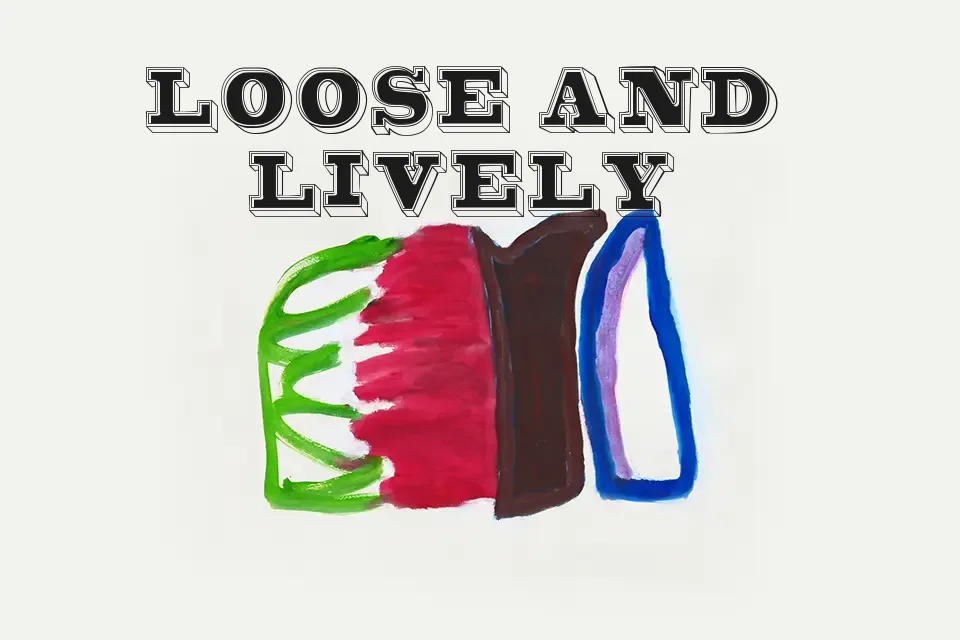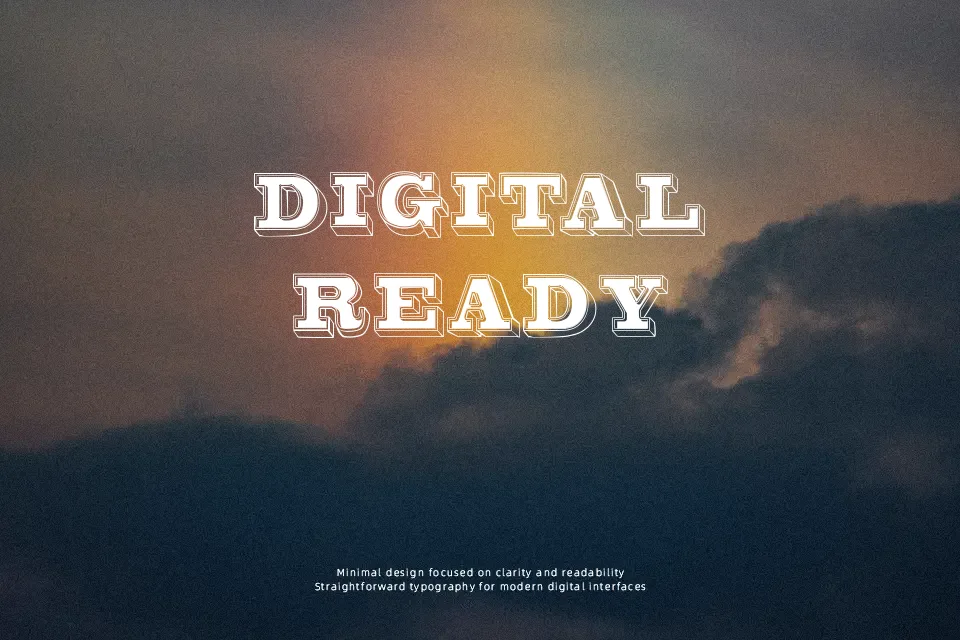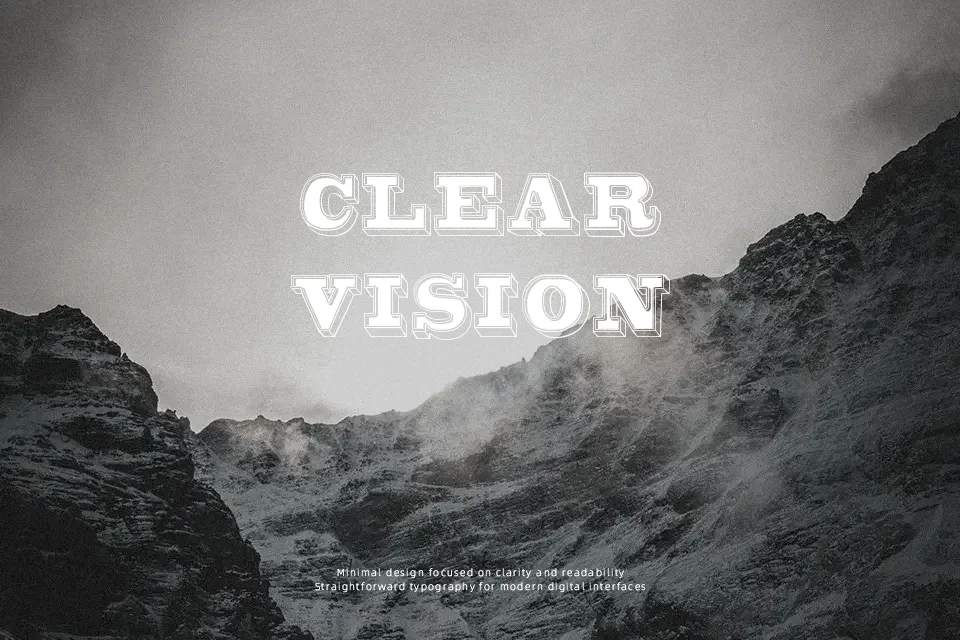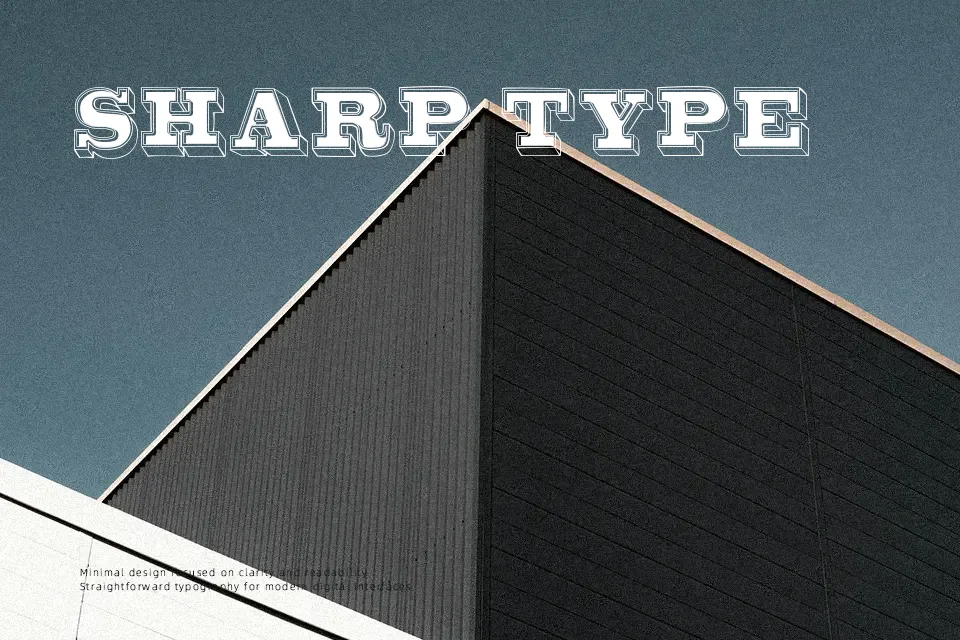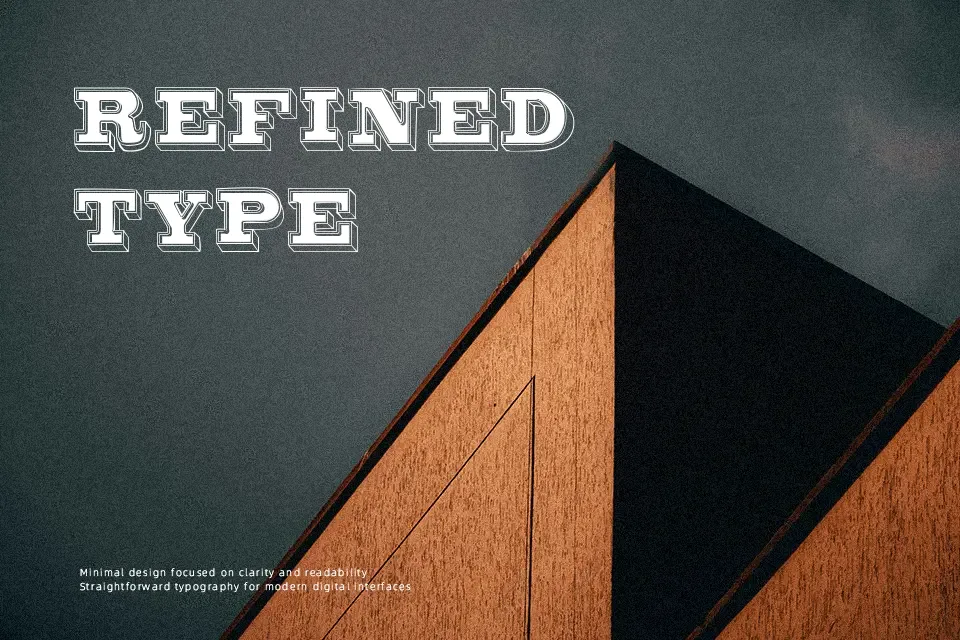
Bro 4D Font
Bro 4D Font uses thick block lettering with a built-in dimensional effect, so every character feels stacked and almost sculpted. The strokes are heavy, spacing is fairly tight, and the overall structure leans more playful than precise, which makes it stand out instantly but limits subtle usage. It suits projects where text behaves like a graphic element: gaming overlays, bold poster titles, stickers, or fun social media graphics. On the other hand, the exaggerated 3D style becomes visually tiring in long phrases and looks out of place in serious, editorial, or minimalist layouts. If you already like cartoon or comic display fonts but want something louder and more dimensional, this sits in that same family with extra attitude.
Short gaming titles and overlays
YouTube or streaming thumbnails
Bold poster or flyer headlines
Stickers, labels, and merch slogans
Body text or long paragraphs
Corporate, editorial, or formal branding
Minimal or highly restrained layouts
Small-size captions and UI text
Perfect for gaming, headline, and music, with a artistic and cartoon style.